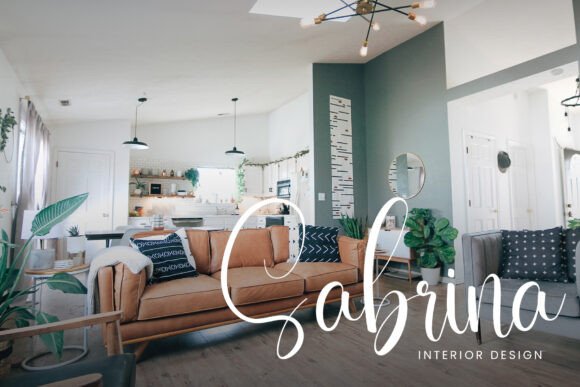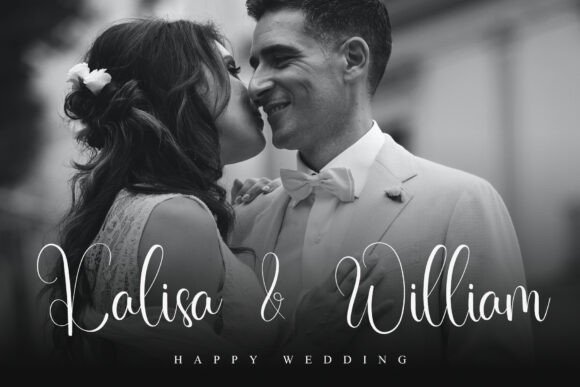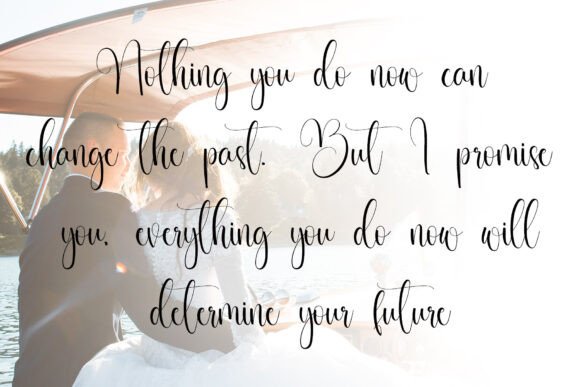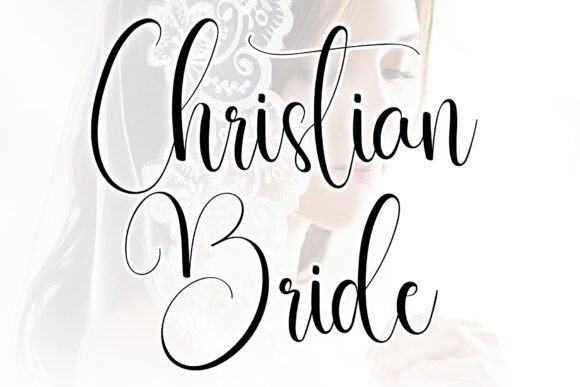
Introduction to Christian Bride Font
Christian Bride is a stylish and modern handwritten, suitable for a wide spectrum of applications.
From greeting cards to headlines, branding and packaging, this font will guarantee a happiness touch to each of your creations This font is PUA encoded which means you can access all of the amazing glyphs and ligatures with ease.